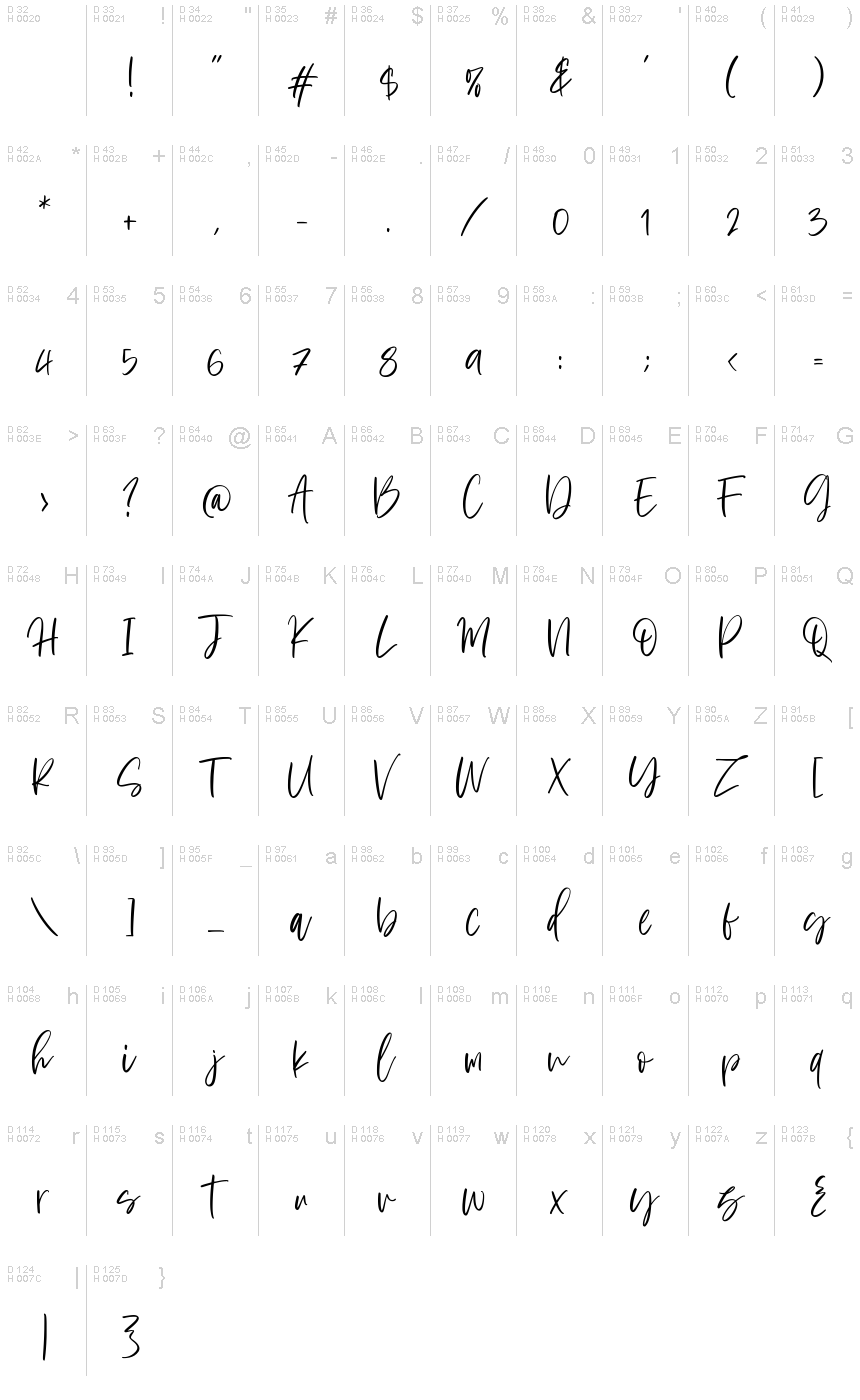
Whistle Sound
Whistle Sound font is a gorgeous handwritten typeface from Balpirick Studio, showing off beautiful curves and flowing lines. Casually designed in cursive with smooth connected letters, Whistle Sound can make any given project one of the best both visually and emotionally. The key to its charm is the playful mood captured through the medium contrast strokes and varied line thickness.